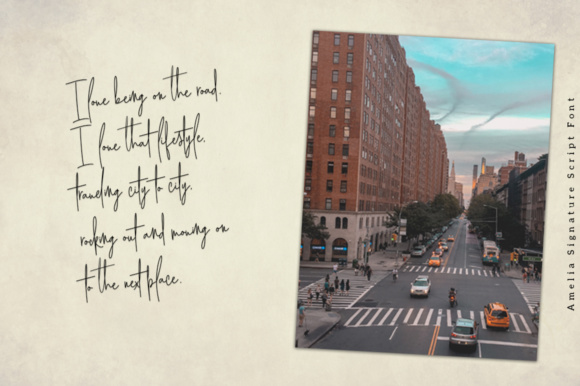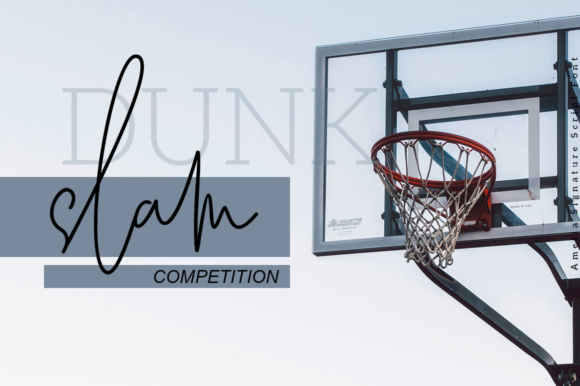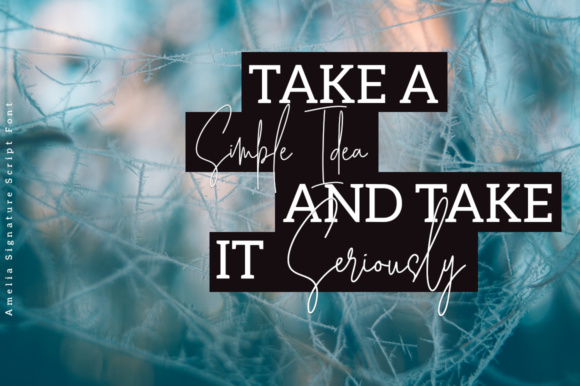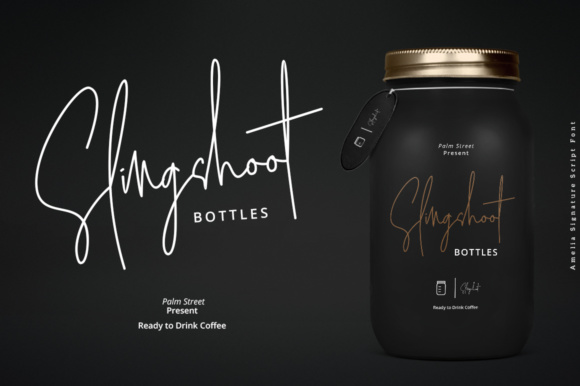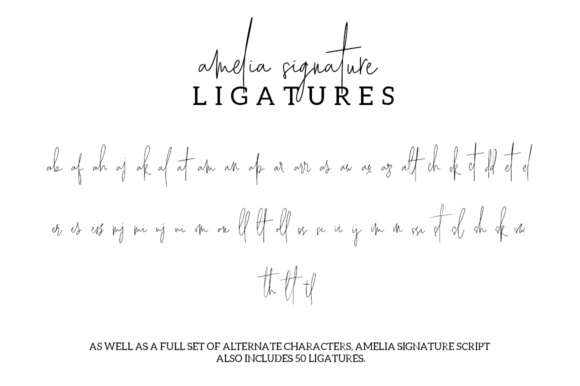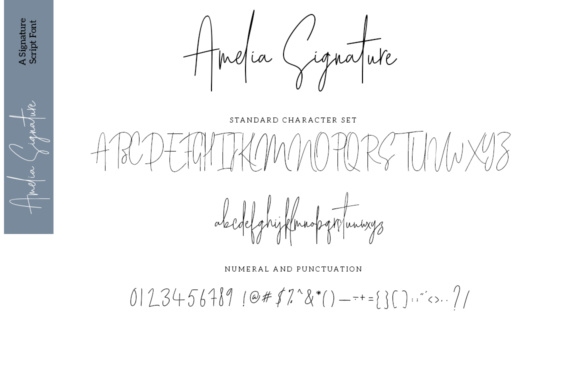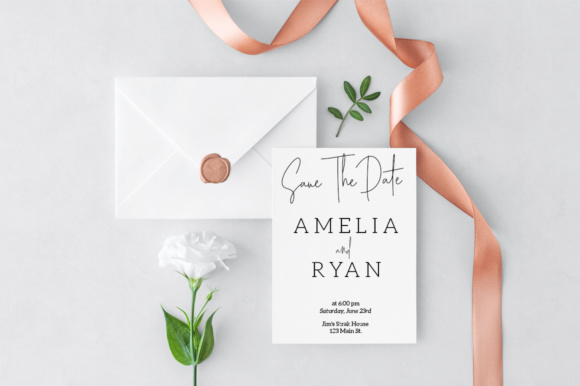
Amelia Font
About Amelia Font
The Amelia is a beautiful signature script font. It will add a fashionable look to your designs.
The Amelia is created to look as close as possible to a handwritten script.